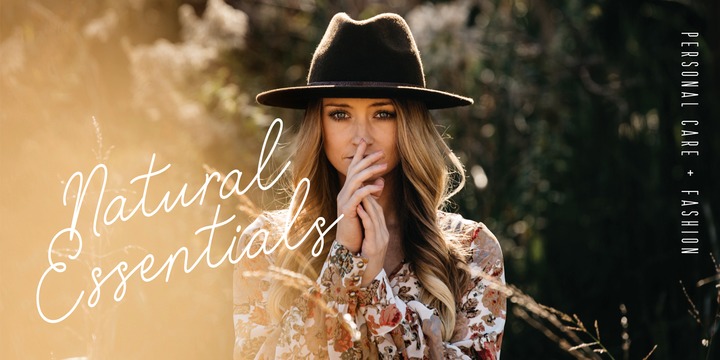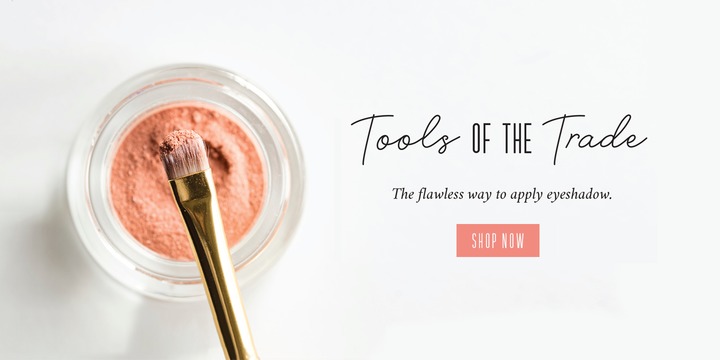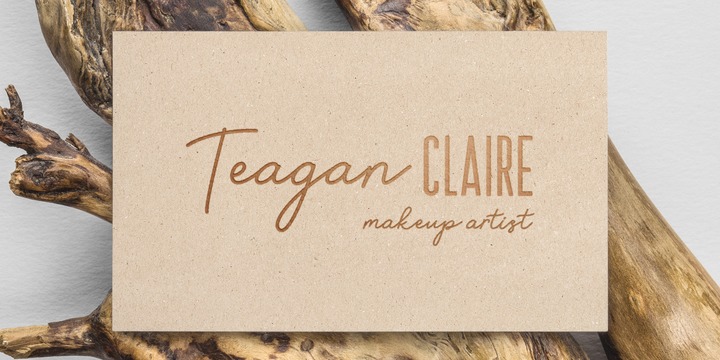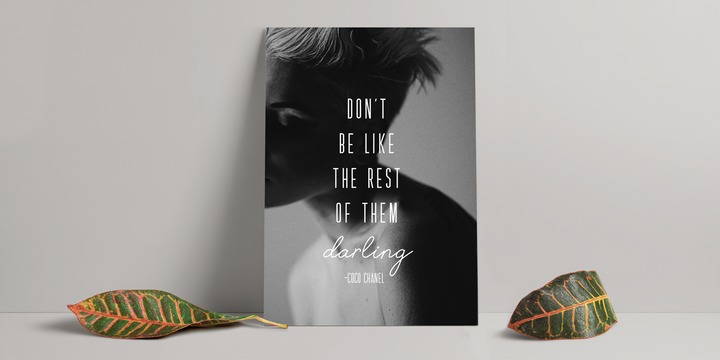
Beauty Style is a luxurious font collection that includes a signature script and a sans serif typeface.
Beauty Style scripts come in four weights including 12 alternates and 56 ligatures.
Programming has been added to the scripts for flow and elegance. Use Beauty Style for sophisticated designing. Fonts designed by Cindy Kinash and posters by Corinne Alexandra. See font details below. More SANS FEATURES: All caps letters Condensed Sans OpenType Common ligatures Available in Extended Latin Pro (Standard) or American (US) version.
SCRIPT FEATURES: Signature style OpenType Common ligatures Available in Extended Latin Pro (Standard) or American (US) version.
12 alternates and 56 ligatures Programmed ligature feature for optimization. Every time you type specific pairs, ligatures are programmed to pop up to avoid letter pair collisions.
Programming ligatures gives the script a more elegant and pretty flow. Make sure to turn on the feature in your preferred program that supports ligatures. FREE WORDS FEATURES: 52 free words useful for beauty and sales promoting. Keyword examples include you, sale, and beautiful. Intended use for beauty, fashion, newsletters, websites, magazines, sales, commercials and packaging.
TIPS: Try the OpenType ligatures by turning on the feature in your preferred program that supports ligatures.
FONT LAYERING- Layer the script over the sans to give a cool retro effect.
There are so many fun and creative possibilities. FONT CONNECTING- Interconnect the sans and script letters together creating TYPE ART. All you need to do is convert the font into an object and have fun! (Watch the upcoming tutorials on the cultivatedmindtype Instagram) SANS- When sans text is small, widen the text tracking for legibility and style variety.
Sans is diverse and can work as tight or loose tracking. Use Beauty and Style for type art, beauty marketing, fashion, apparel, product design, music, websites, promotions and film.